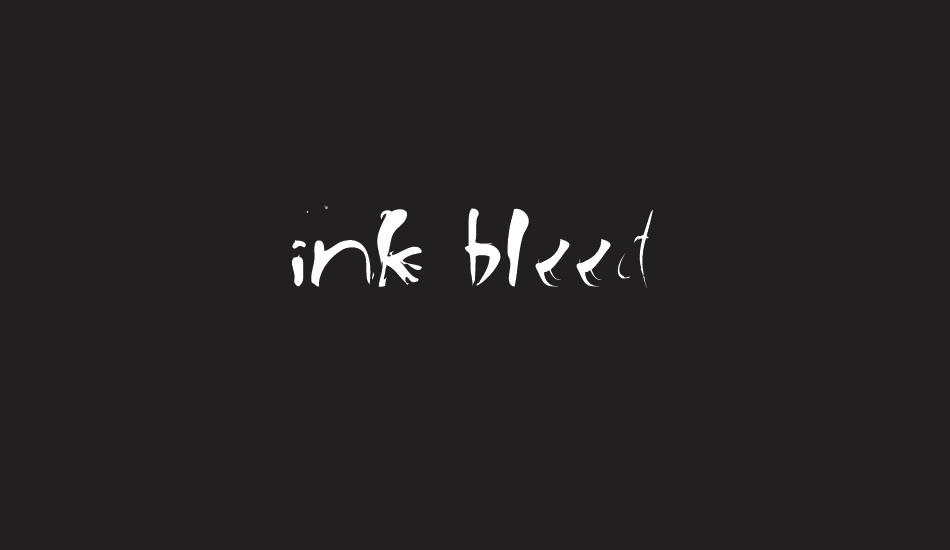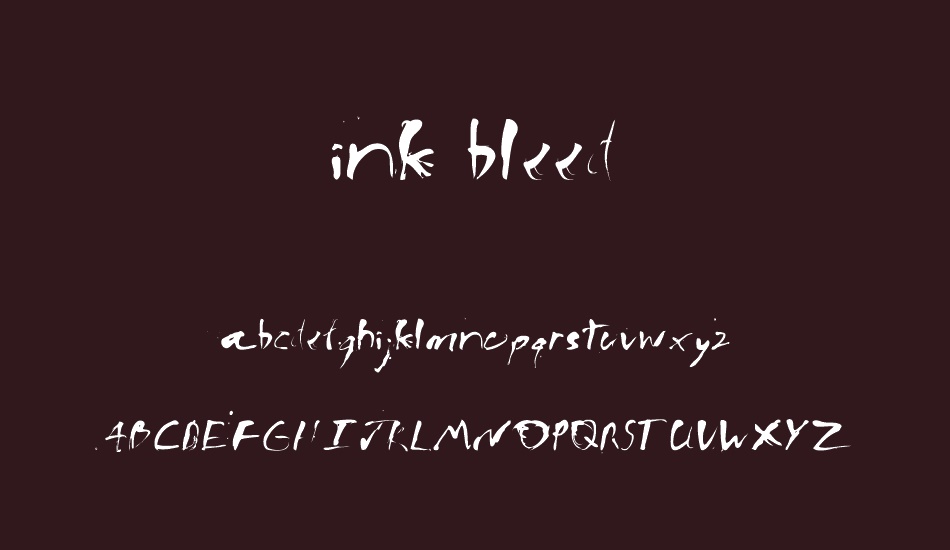
Ink Bleed Font
Ink Bleed Font - Web ink bleed font download is available free from fontget. Ink bleed is a free font for personal use created by bill johnston. Dirty stains embracing the fusion of ink and structure.